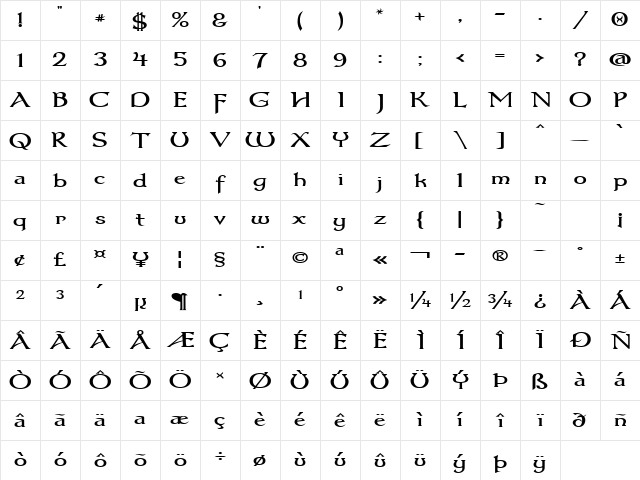
Dumbledor 3 Wide Regular
Design Context for Dumbledor 3 Wide
Dumbledor 3 Wide is a composed and adaptable typeface that performs quietly and consistently across a wide range of design contexts.
Pro Tip: Use Dumbledor 3 Wide in both headline and body roles to test its range before committing to a single application.